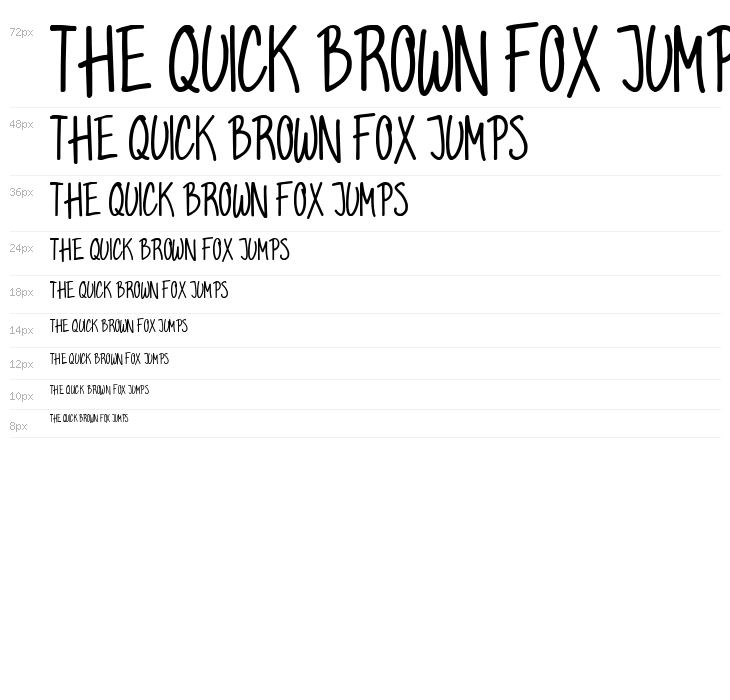
GrahamHand Font
GrahamHand Description
This font exhibits a playful and casual handwritten style, characterized by its smooth and flowing letterforms. The strokes are consistent in thickness, giving it a uniform appearance. The characters are slightly elongated, adding a touch of elegance while maintaining a relaxed feel. The spacing between characters is moderate, ensuring readability without compromising its informal charm. This font is versatile, suitable for projects that require a personal touch, such as invitations, greeting cards, or casual branding.
| Overall Style | Casual |
| Use Case | Headlines, Logos, Informal Text |
| Proposed Projects | Ideal for invitations, greeting cards, casual branding, and personal projects. |